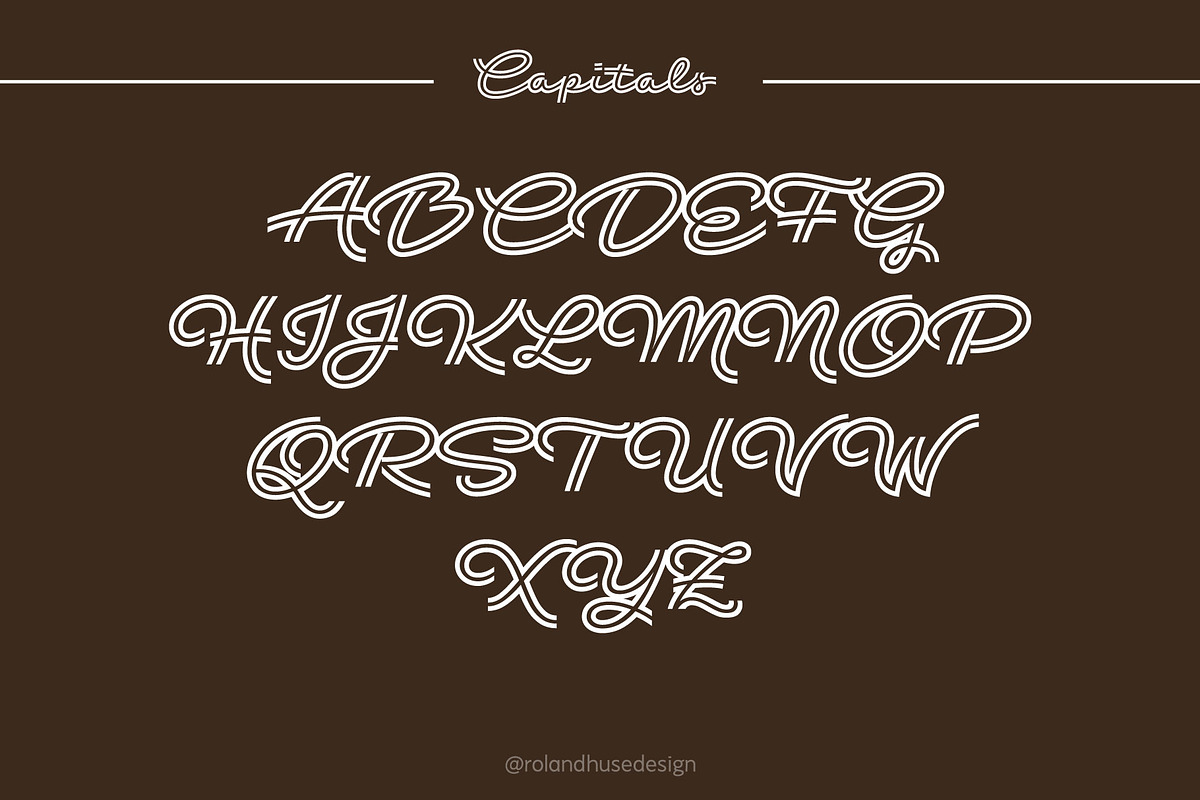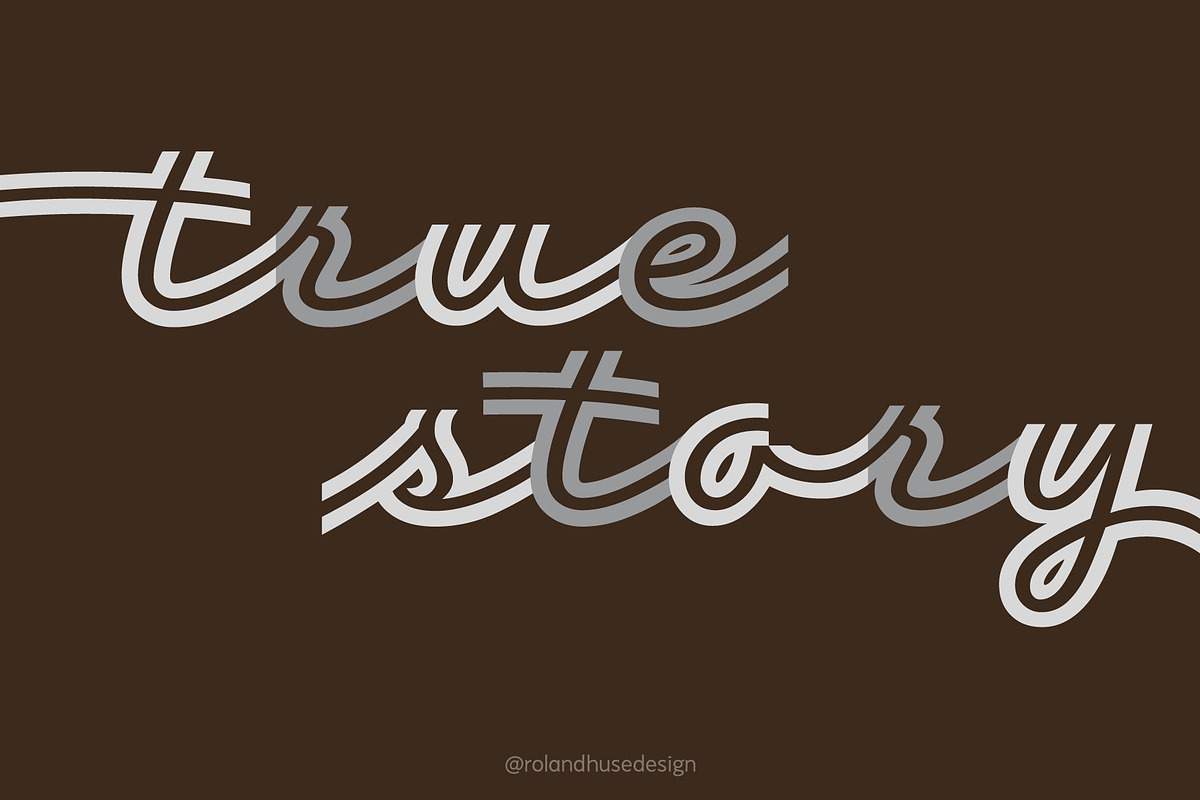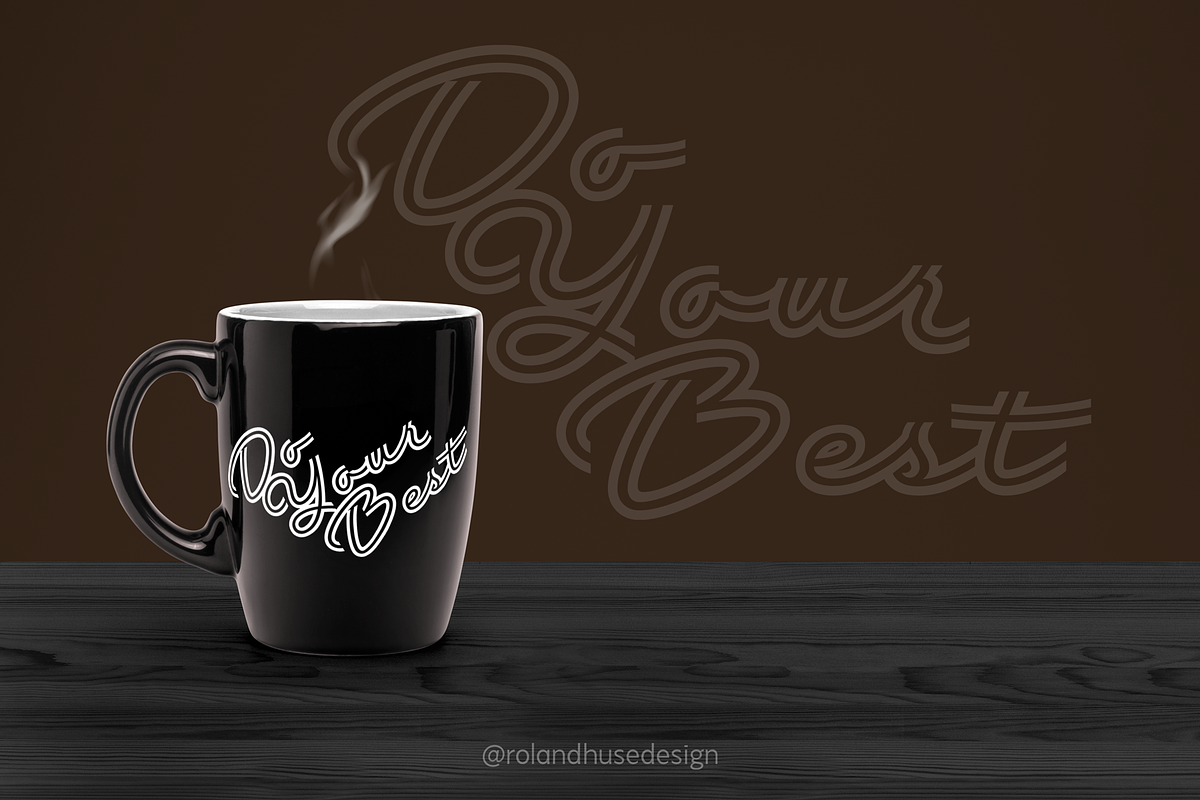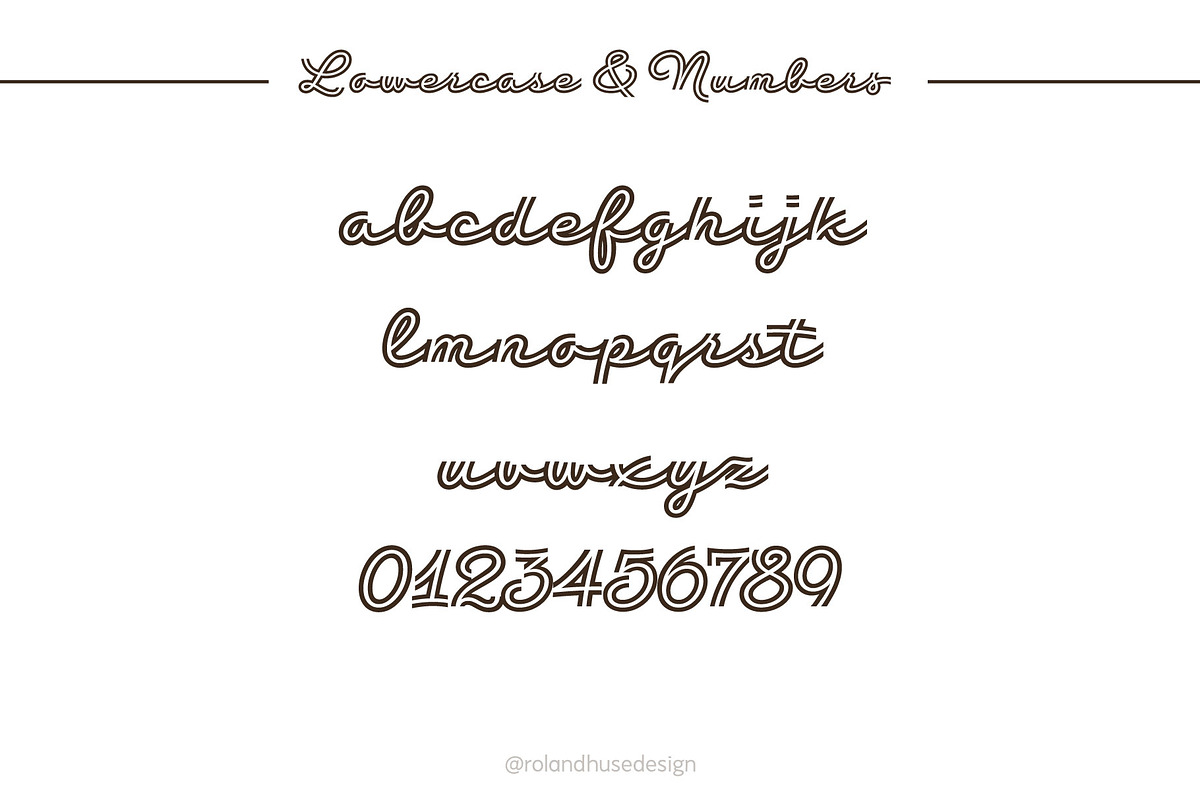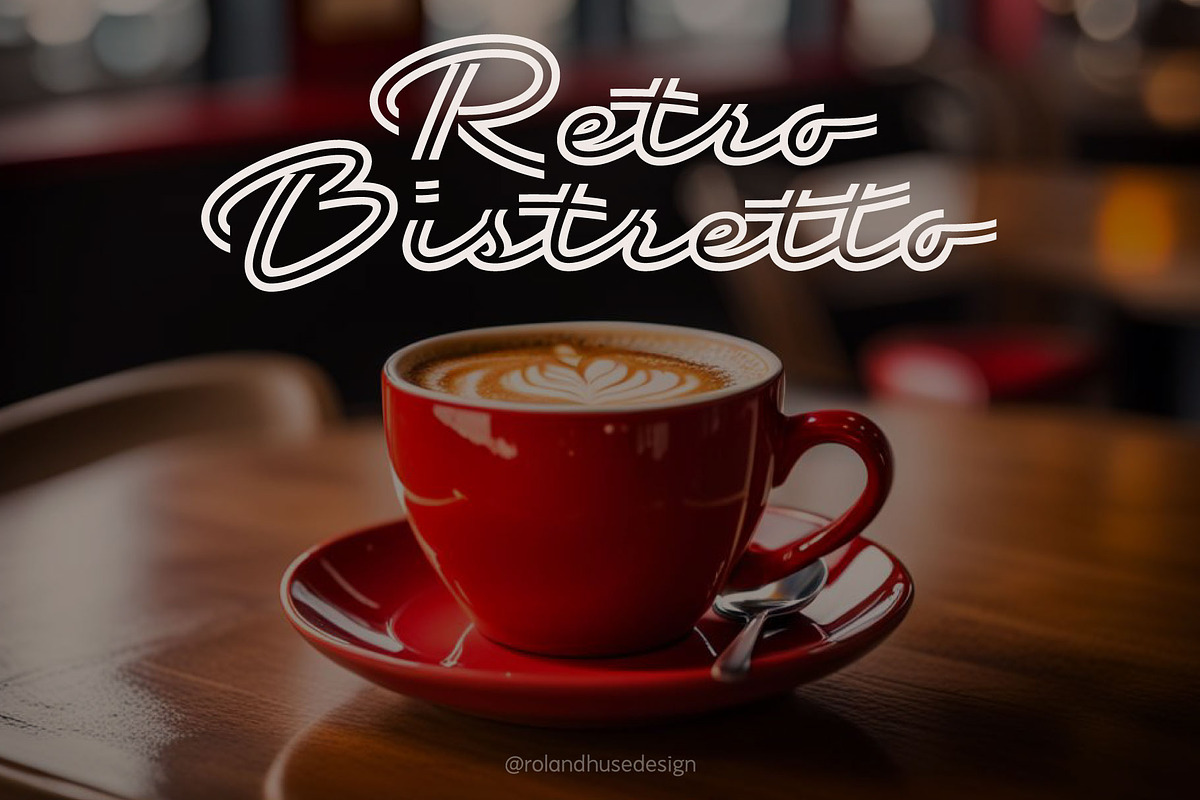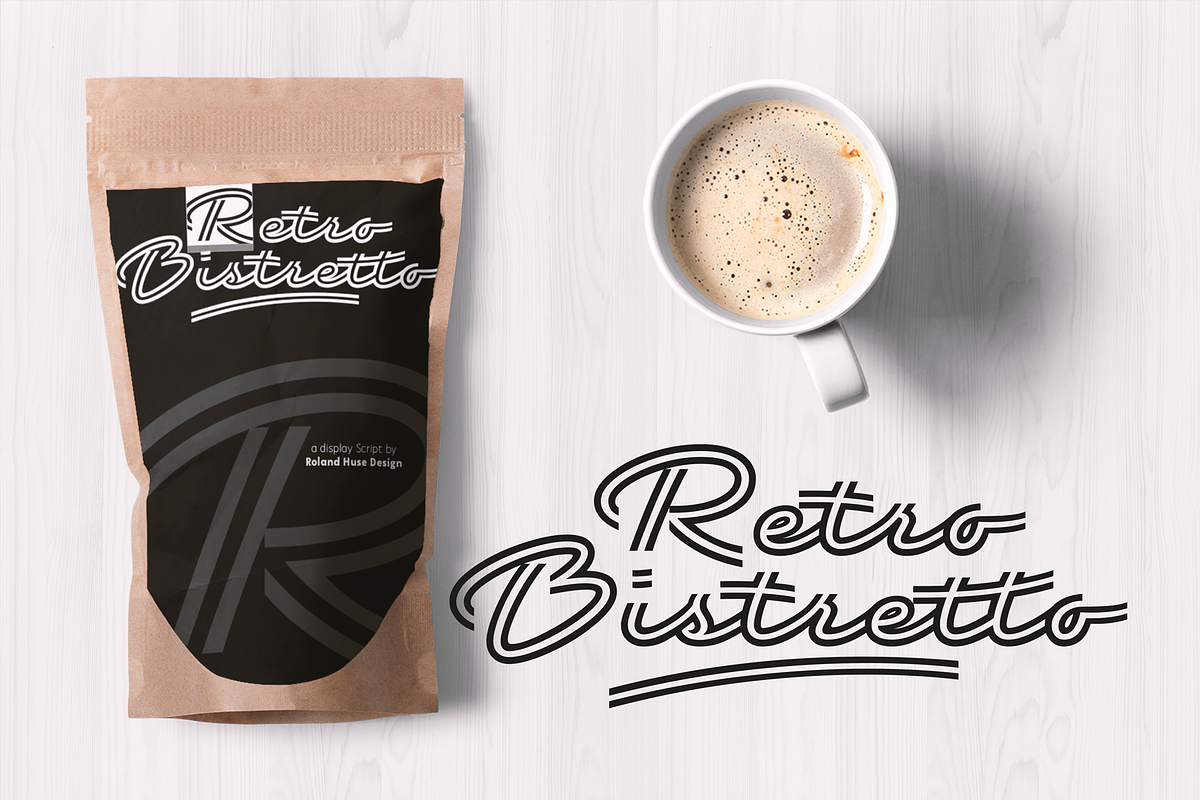
Retro Bistretto
"Retro Bistretto" is a vintage style outline display script. The coffee theme fits best but it goes well with any short quotes, logos or display text. I have added a few alternates for ending letters: /b /f /g /o /p /r /s /t /v /w /y , ligatures for double letters /tt and /ll and initial forms for /r /s /t and /z
The character set contains all European accented latin letters and special characters. Basic punctuation and numbers.